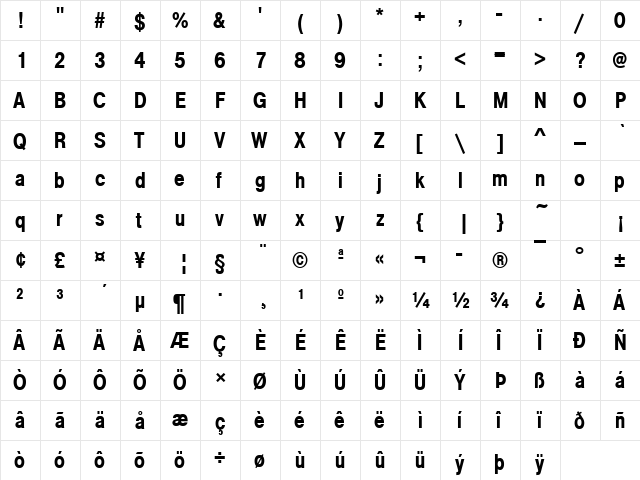
FinaDMedCon Regular Font Preview
FinaDMedCon Regular
Design Context for FinaDMedCon Typeface
FinaDMedCon takes a measured approach to typography — its balanced proportions and neutral character make it a reliable workhorse for both digital and print work.